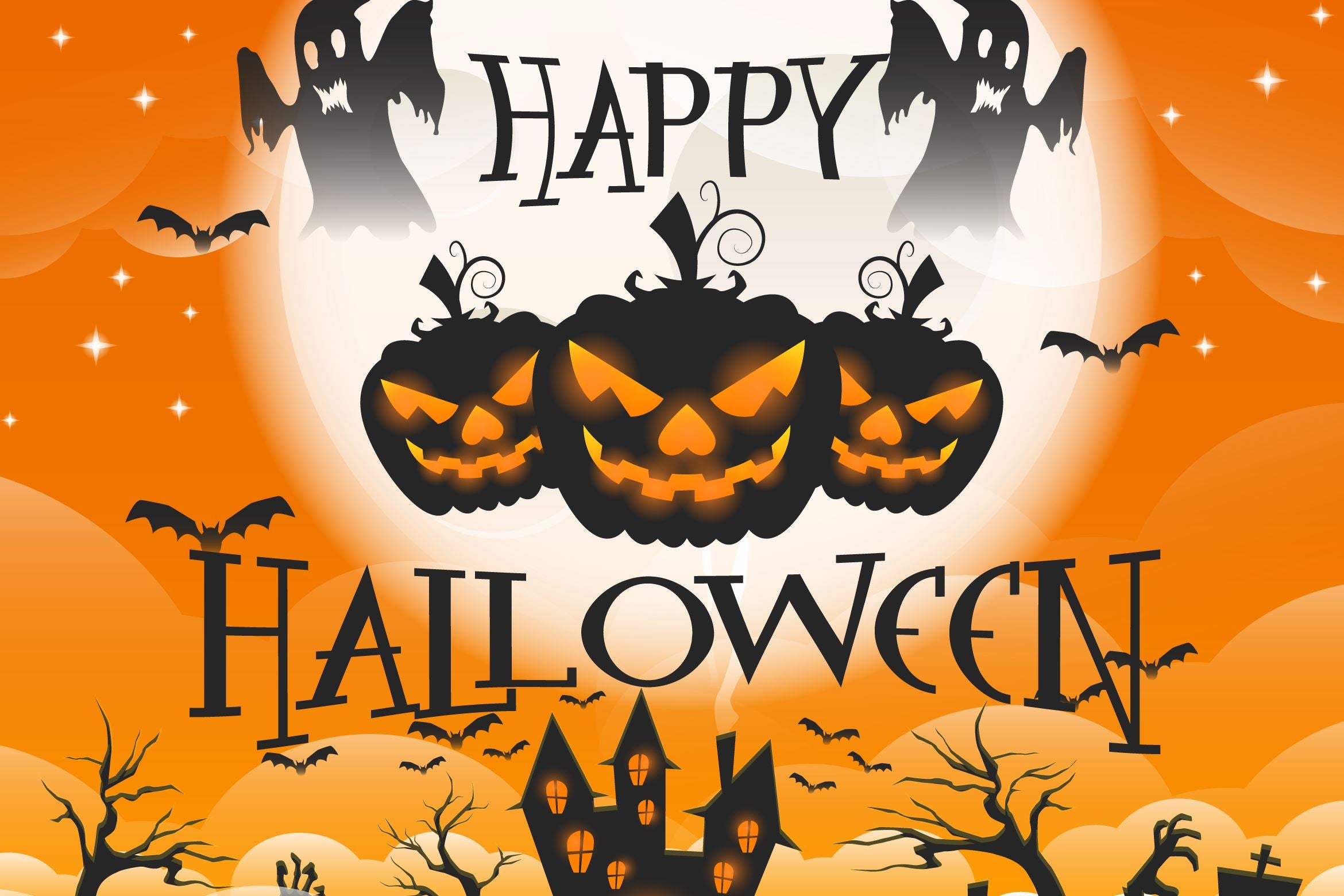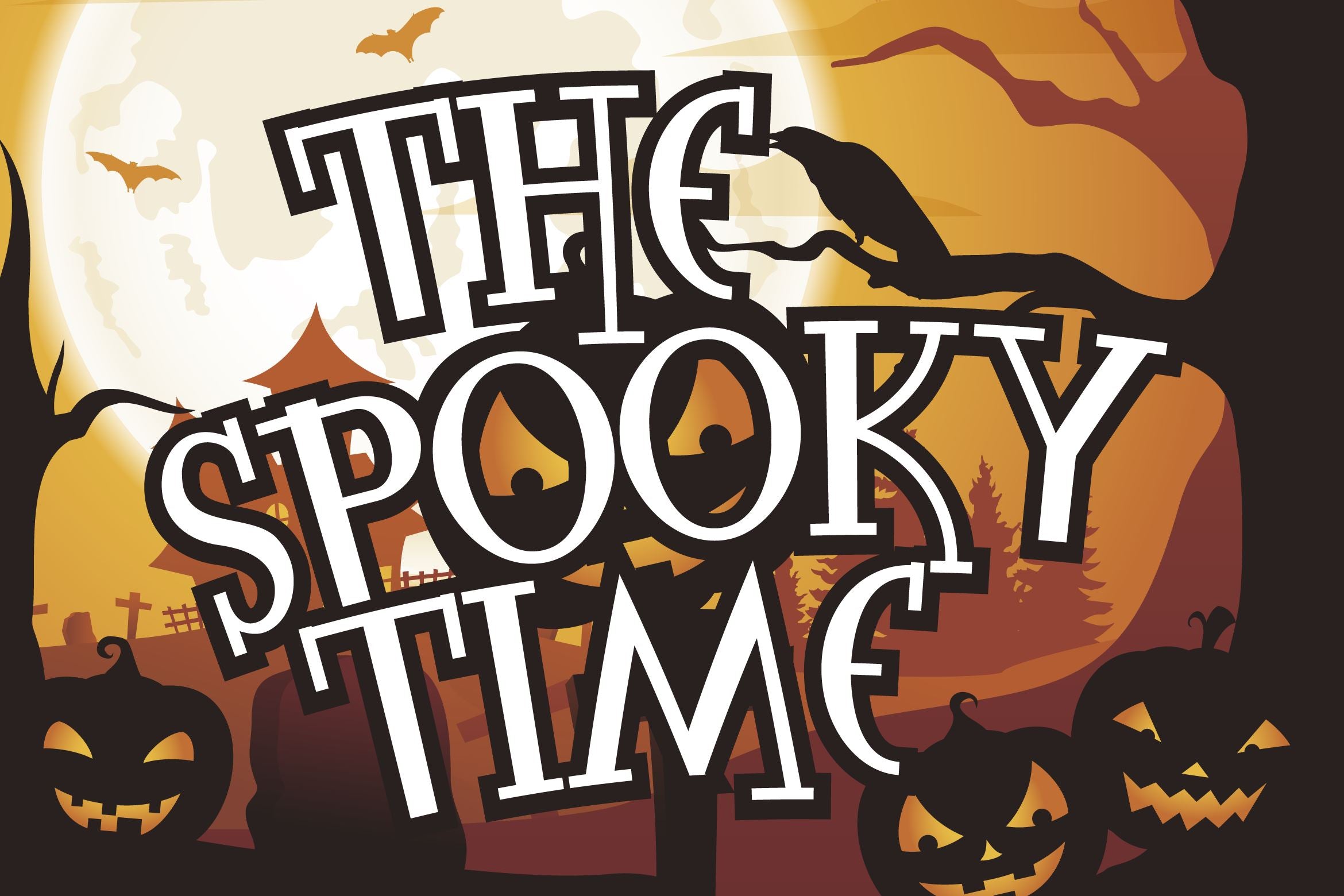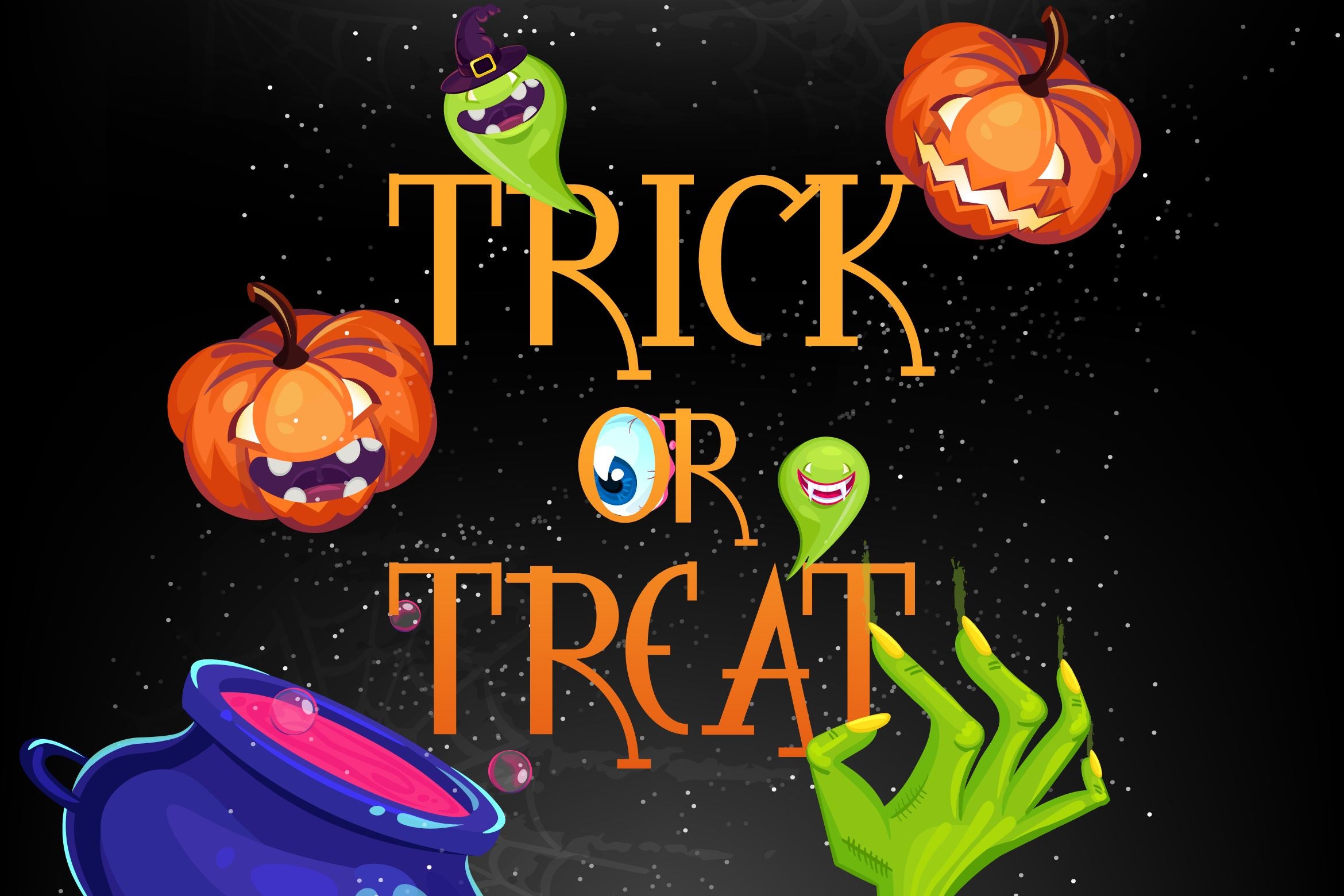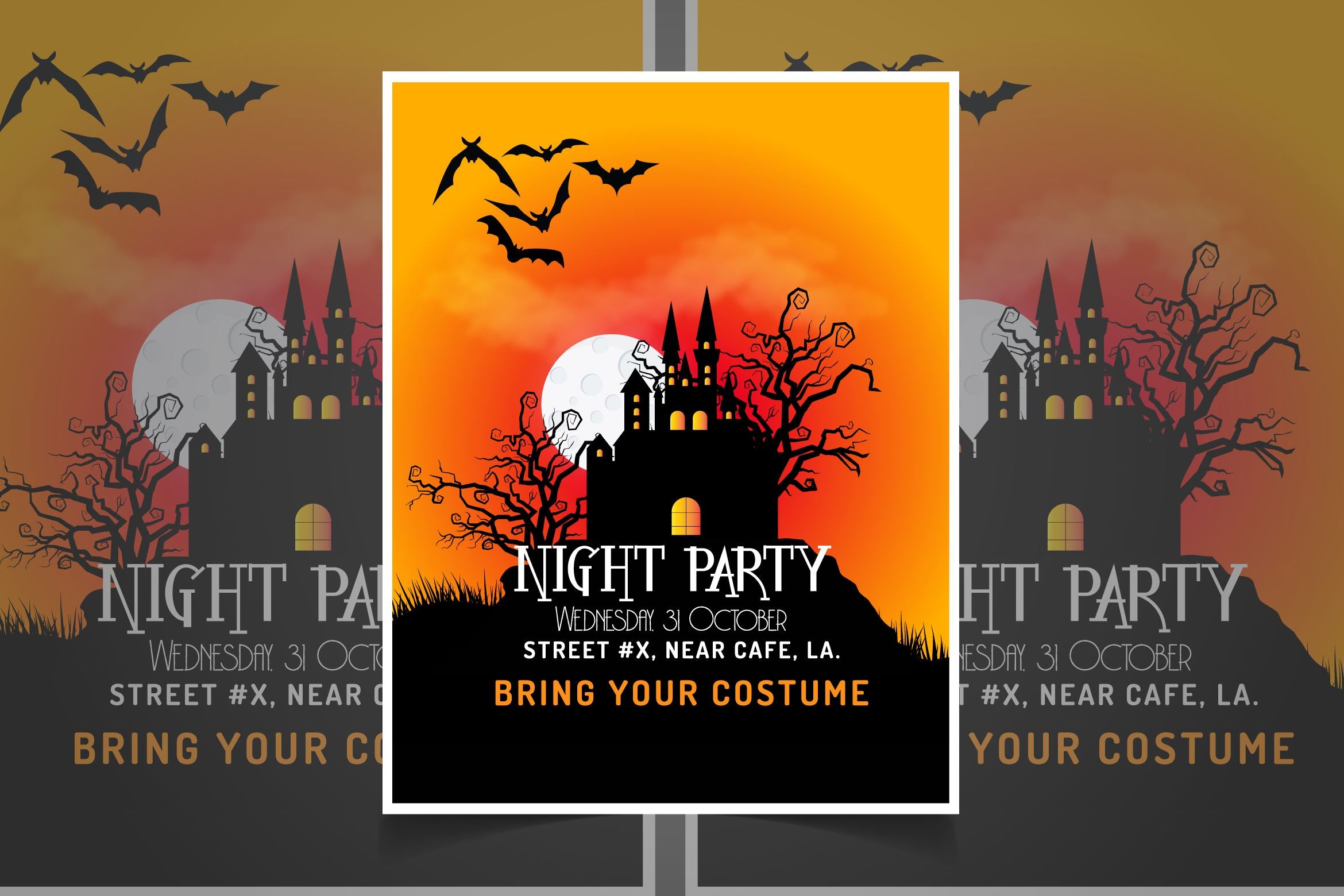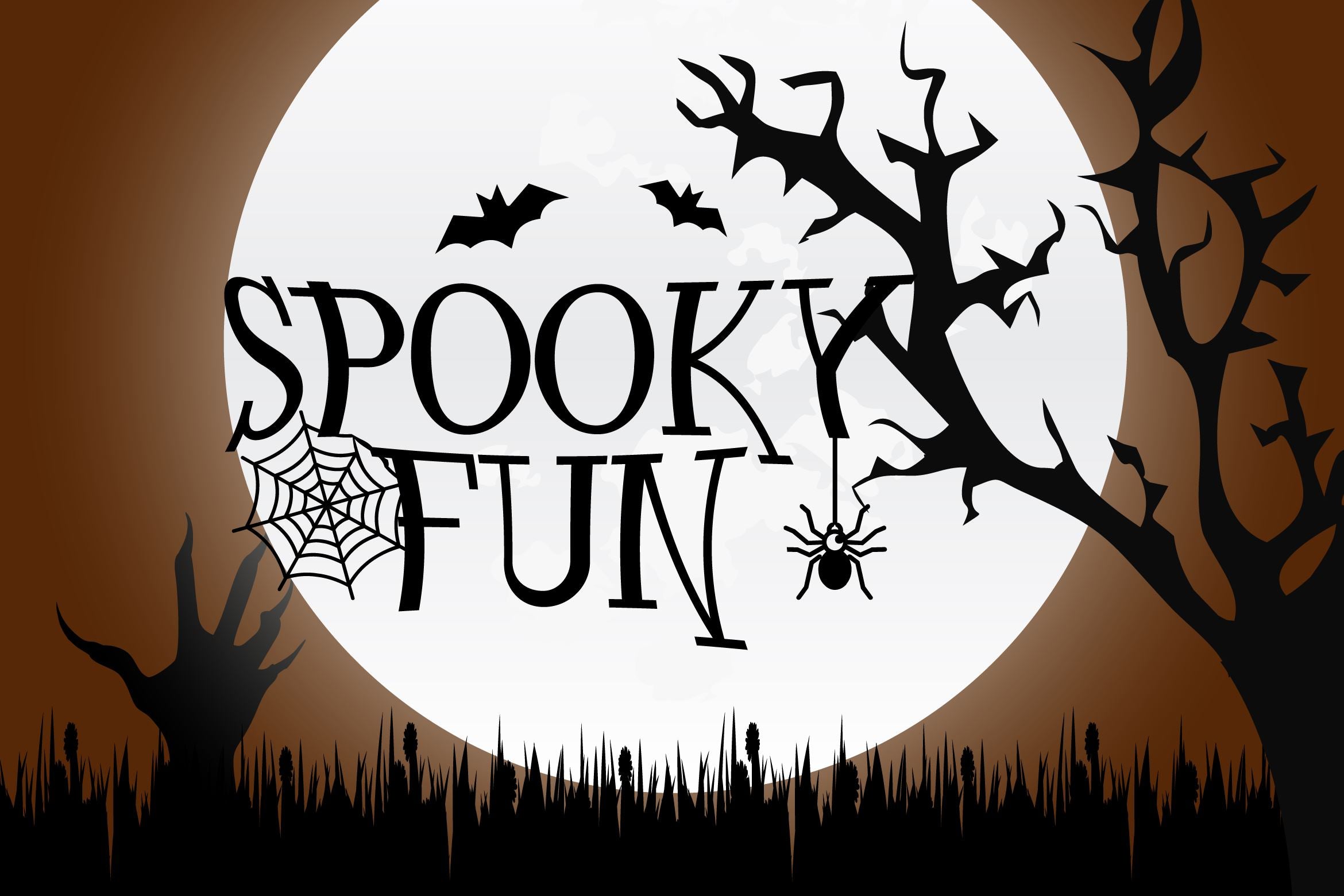
About The Spooky Time
The Spooky Time celebrates all things scary: It’s the ideal display typeface for any spooky Halloween-themed creative project. Features : PUA Encoded 100% Acessibility Standard Ligatures If you don’t have a program that supports OpenType features such as Adobe Illustrator and CorelDraw X Versions, you can access all the alternate glyphs using Font Book (Mac) or Character Map (Windows).To Access Alternate Characters Click The Link Below: How to access alternates in Adobe illustrator CS https://www.youtube.com/watch?v=geL0Ye02Ryk How to access alternates in Adobe illustrator CC https://www.youtube.com/watch?v=V25yiUh8BcE How to access alternates in Ms Wordhttps://www.youtube.com/watch?v=HxkhZiCuwEw How to access alternates in Coreldraw X7 https://www.youtube.com/watch?v=UBVsufJjons How to access alternates in Indesign CS https://www.youtube.com/watch?v=HgZTCxKG14Q How to access alternates in Adobe Photoshop CC https://www.youtube.com/watch?v=BYKXl58AdNY If you have any question, don’t hesitate to contact me by email. Thanks and happy designing Thank You for purchase!